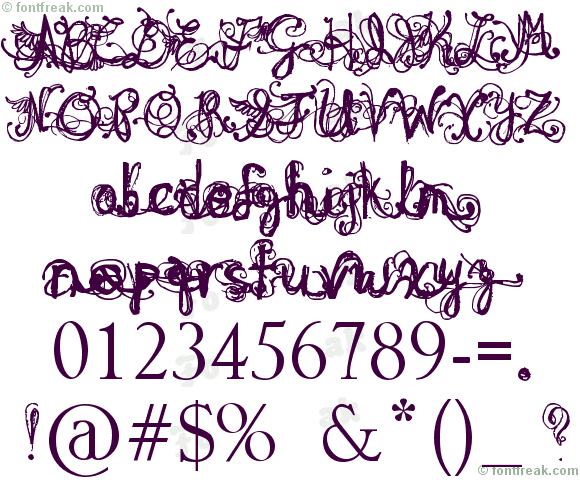
Denne Angel
The Denne Angel font, created by Denise Bentulan in 2010, is a captivating display typeface characterized by its elegant, handwritten style. This font features intricate loops and flourishes, giving it a whimsical yet sophisticated appearance. The stroke weight varies throughout the characters, imparting a sense of movement and fluidity. The decorative elements, including swirls and curls, enhance its artistic flair, making it a unique choice for various design projects. The spacing is thoughtfully balanced, ensuring readability while maintaining its stylish aesthetic.
The Denne Angel font is particularly well-suited for a range of creative applications. It shines in wedding invitations, where its romantic and delicate features can convey a sense of love and joy. Additionally, it is an excellent choice for greeting cards, adding a personal touch to messages for special occasions. Restaurant menus can benefit from this font's charm, attracting customers with a visually appealing presentation. Furthermore, it is ideal for branding projects aimed at artisanal businesses, where a handcrafted feel is essential. Graphic designers and small business owners will find this font a valuable asset in their design toolkit, while content creators can use it to add flair to their digital projects.
What sets the Denne Angel font apart is its ability to blend elegance with a playful spirit. Its unique handwriting style captures attention and leaves a lasting impression, making it a standout choice for anyone looking to create memorable designs. With the Denne Angel font free download option, you can easily incorporate this enchanting typeface into your projects, allowing your creativity to flourish while adding a touch of artistry to your work. Whether you're crafting invitations or promotional materials, Denne Angel is sure to elevate your designs to new heights.